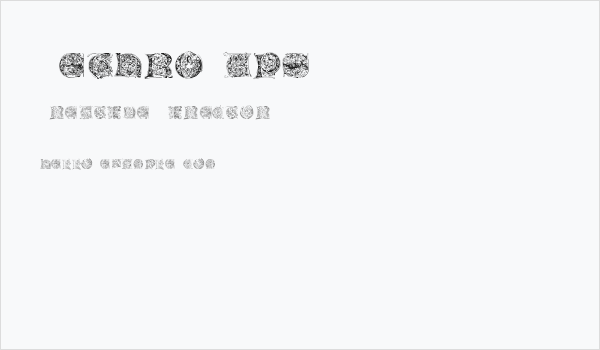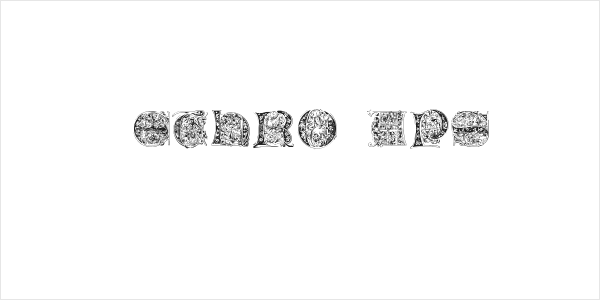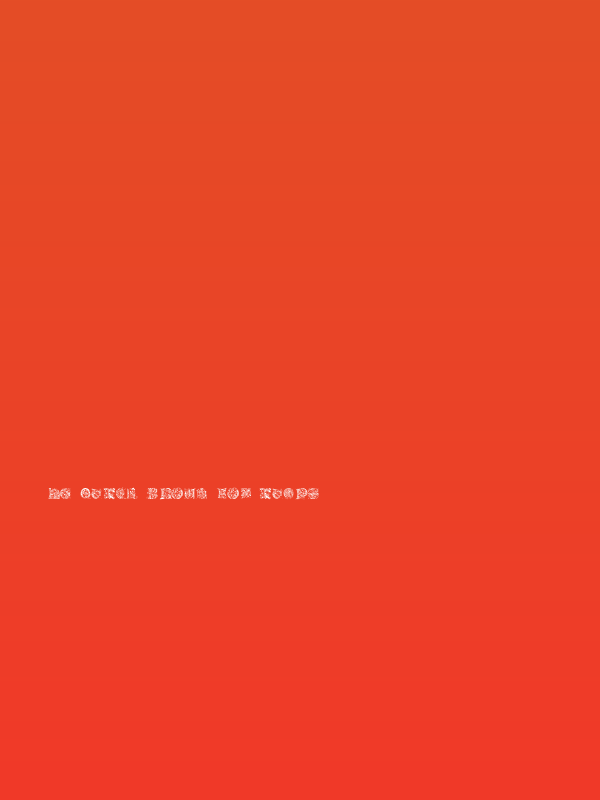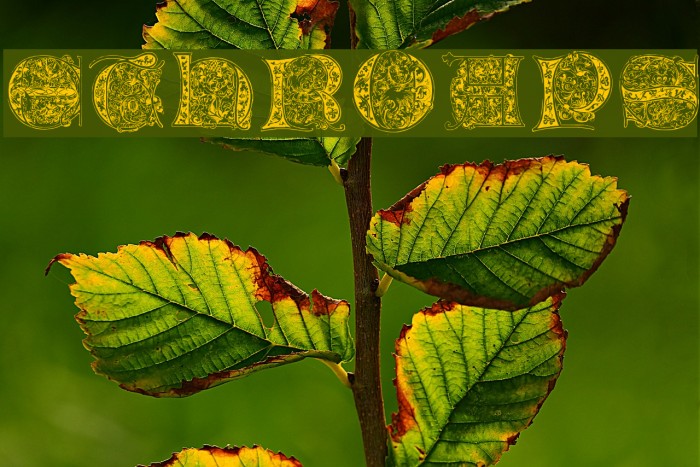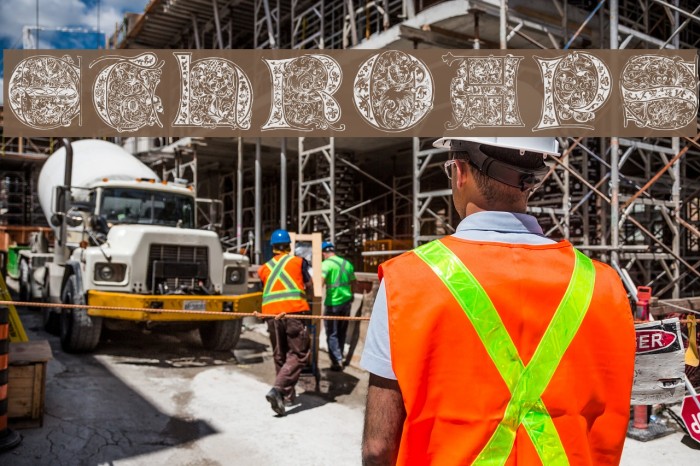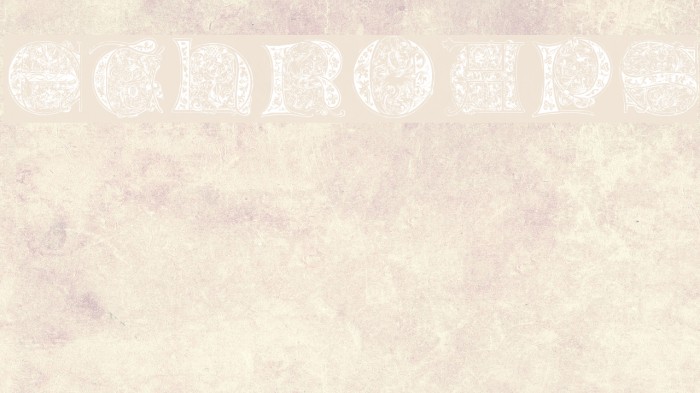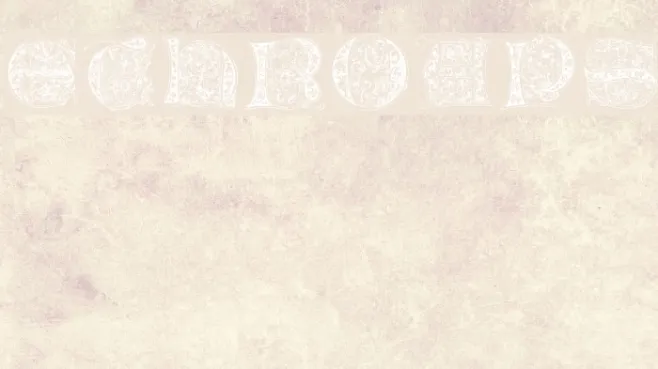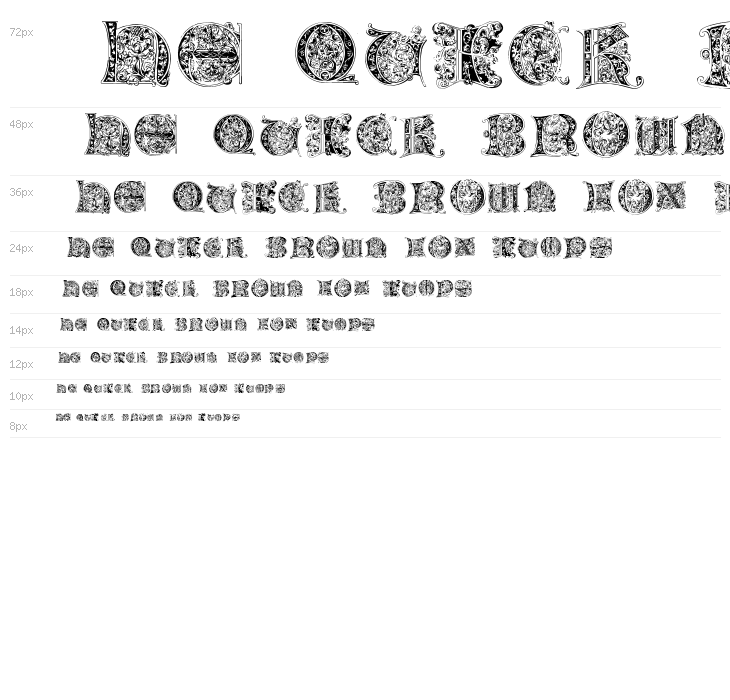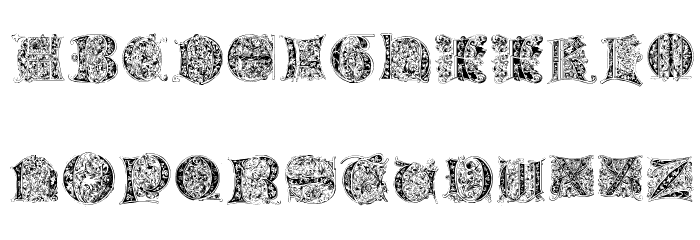
JethroCaps Font
JethroCaps Description
This font is a highly decorative and intricate typeface that features ornate detailing within each character. The letters are embellished with elaborate patterns, giving them a vintage and artistic appearance. The style is reminiscent of Victorian or Baroque design, with each character appearing as a piece of art. The font is likely best suited for display purposes where its detailed design can be appreciated, such as in headlines, posters, or invitations. The complexity of the design may not be suitable for body text due to potential legibility issues at smaller sizes.
| Proposed Projects | This font is perfect for projects that require a vintage or artistic touch, such as wedding invitations, event posters, or branding for luxury products. |